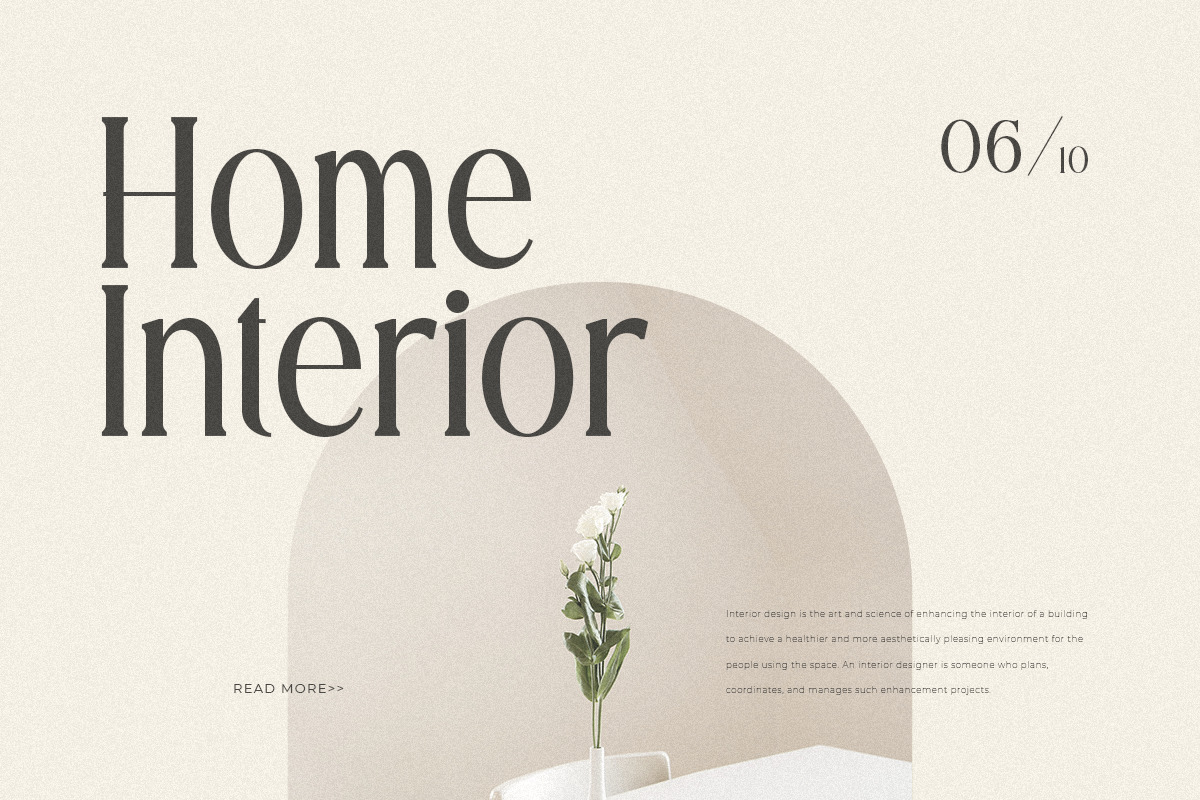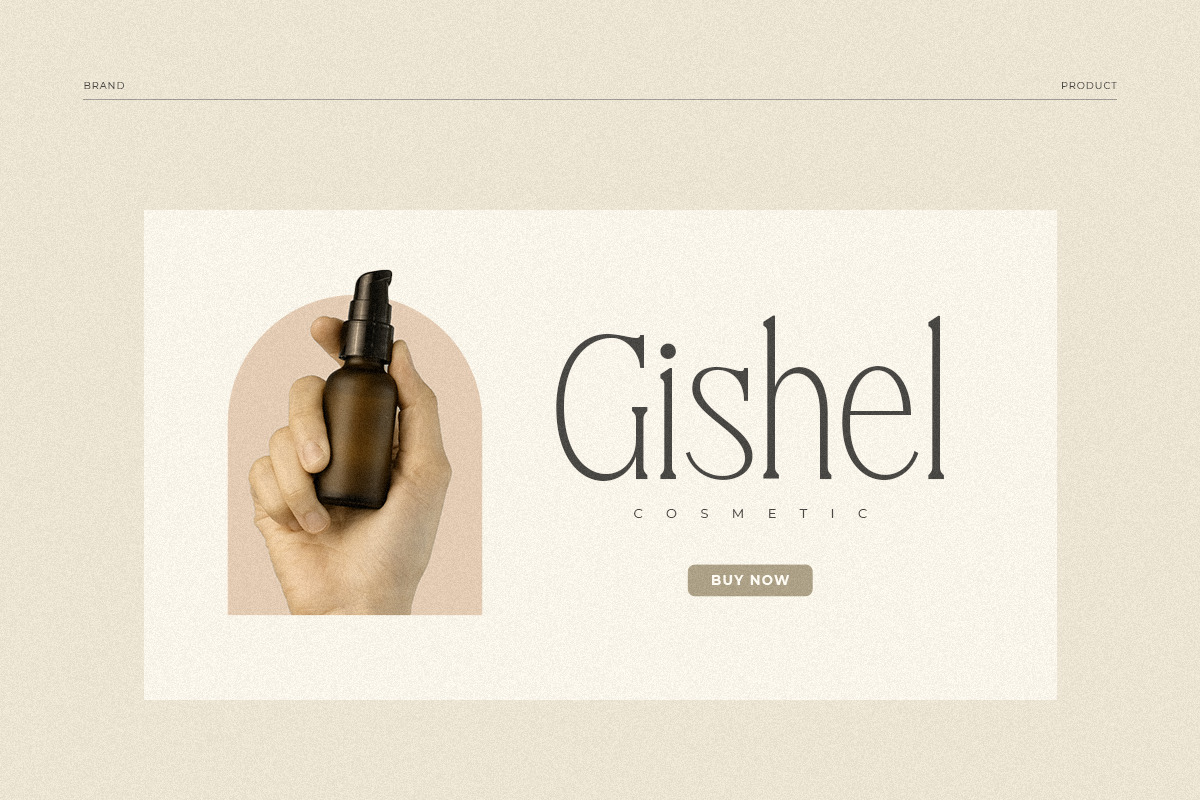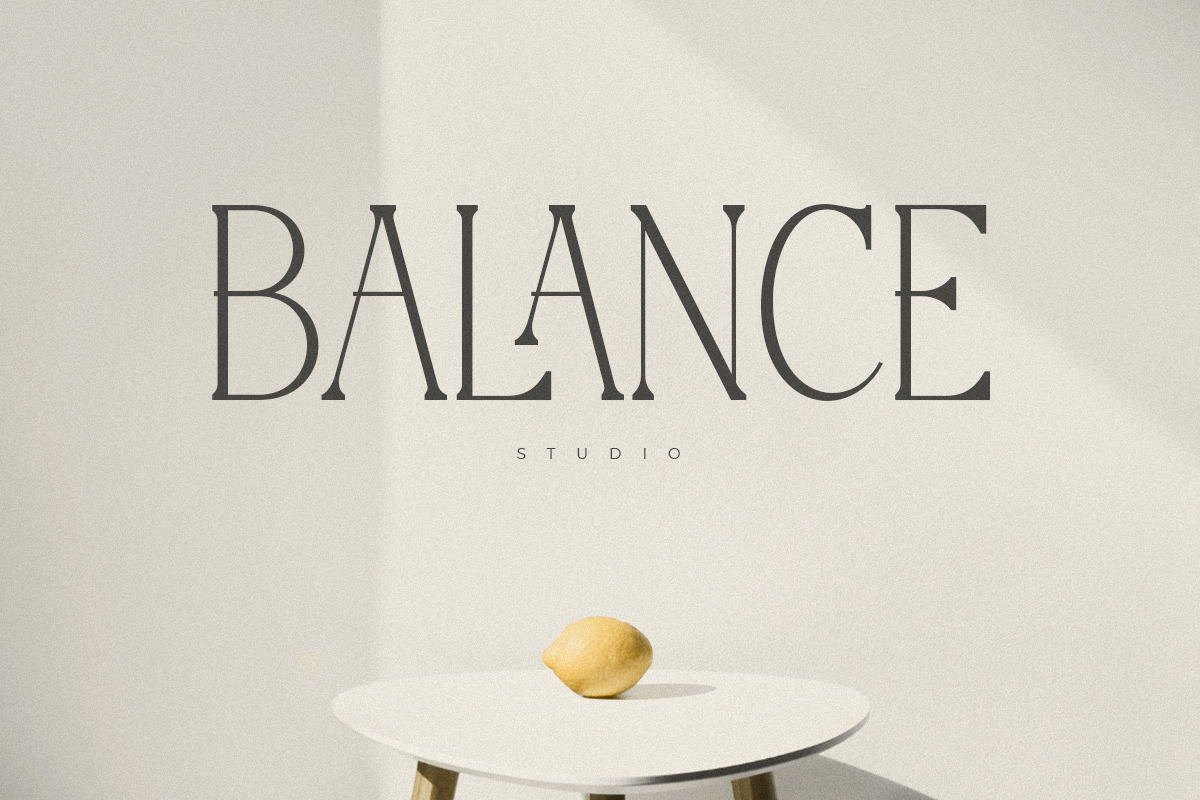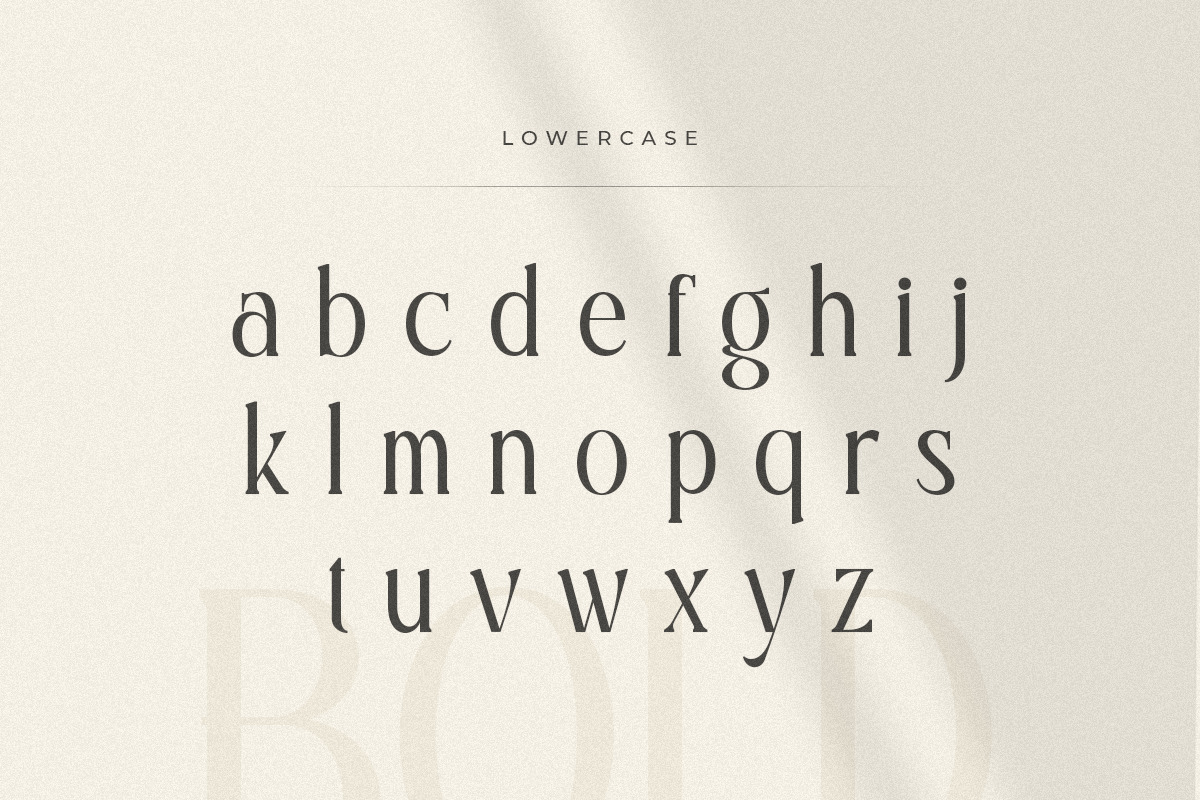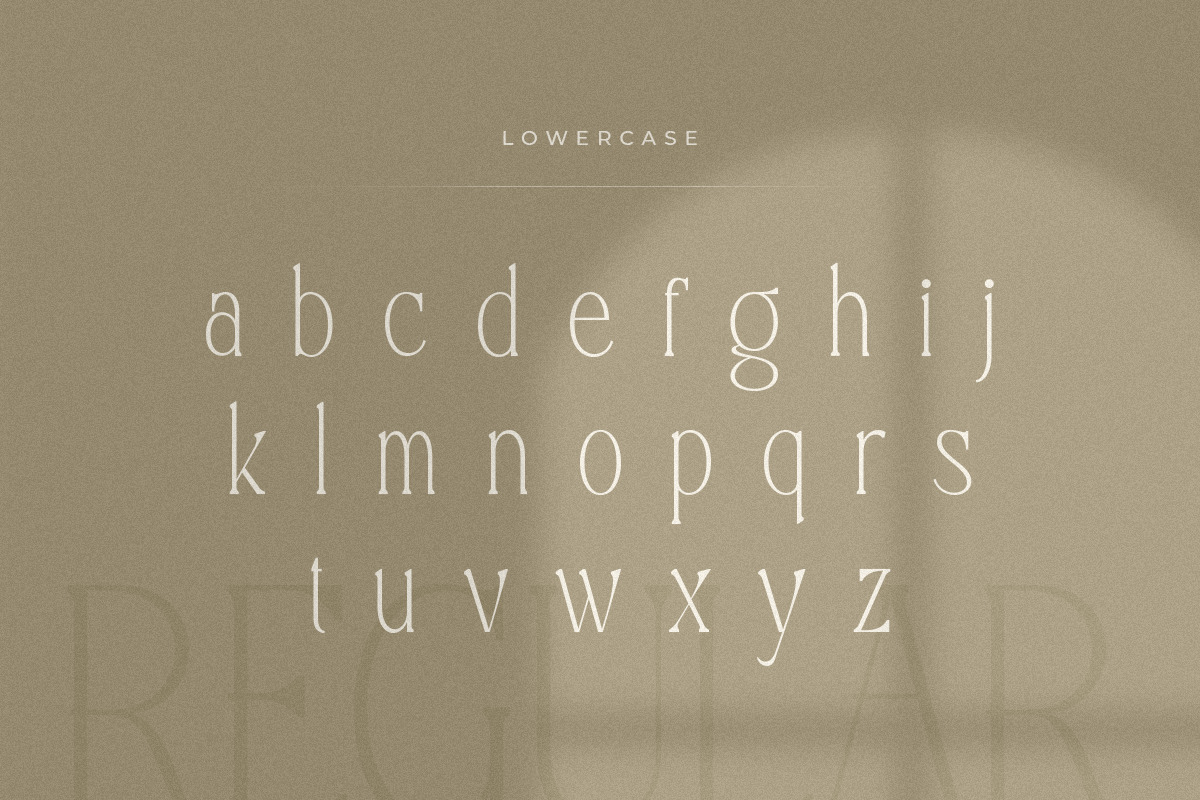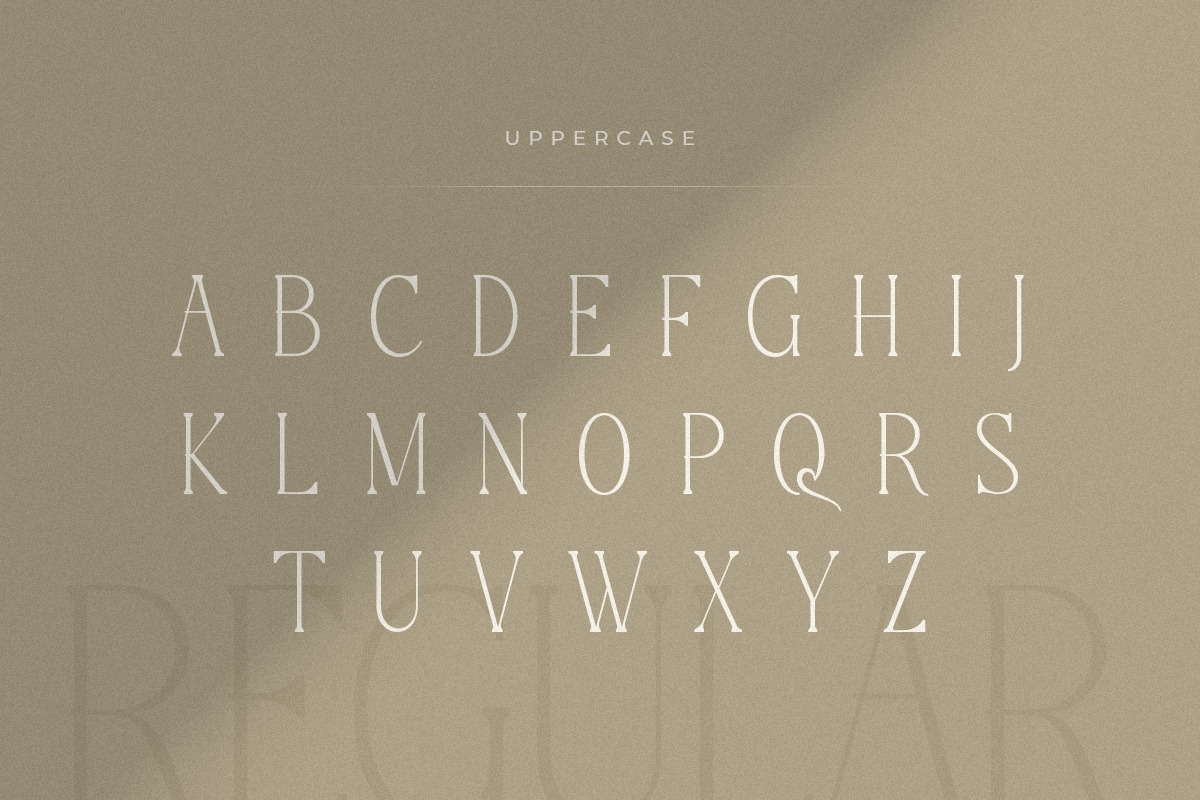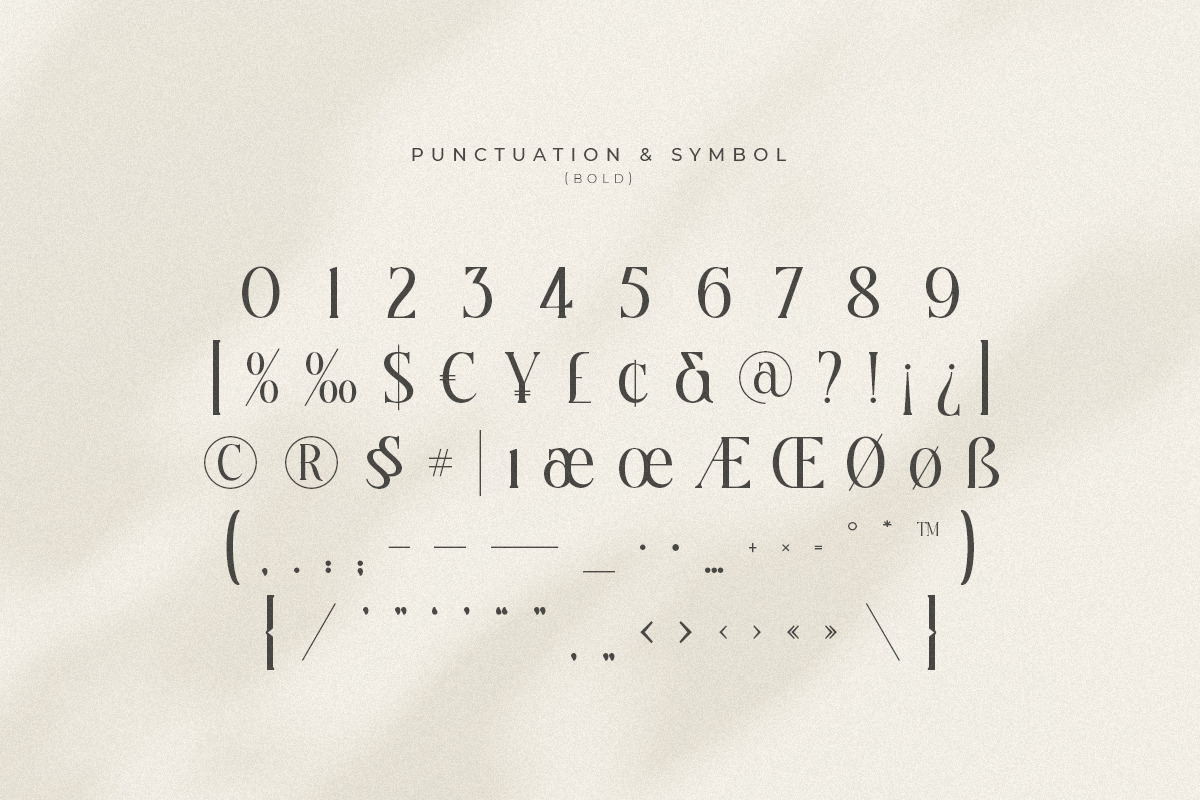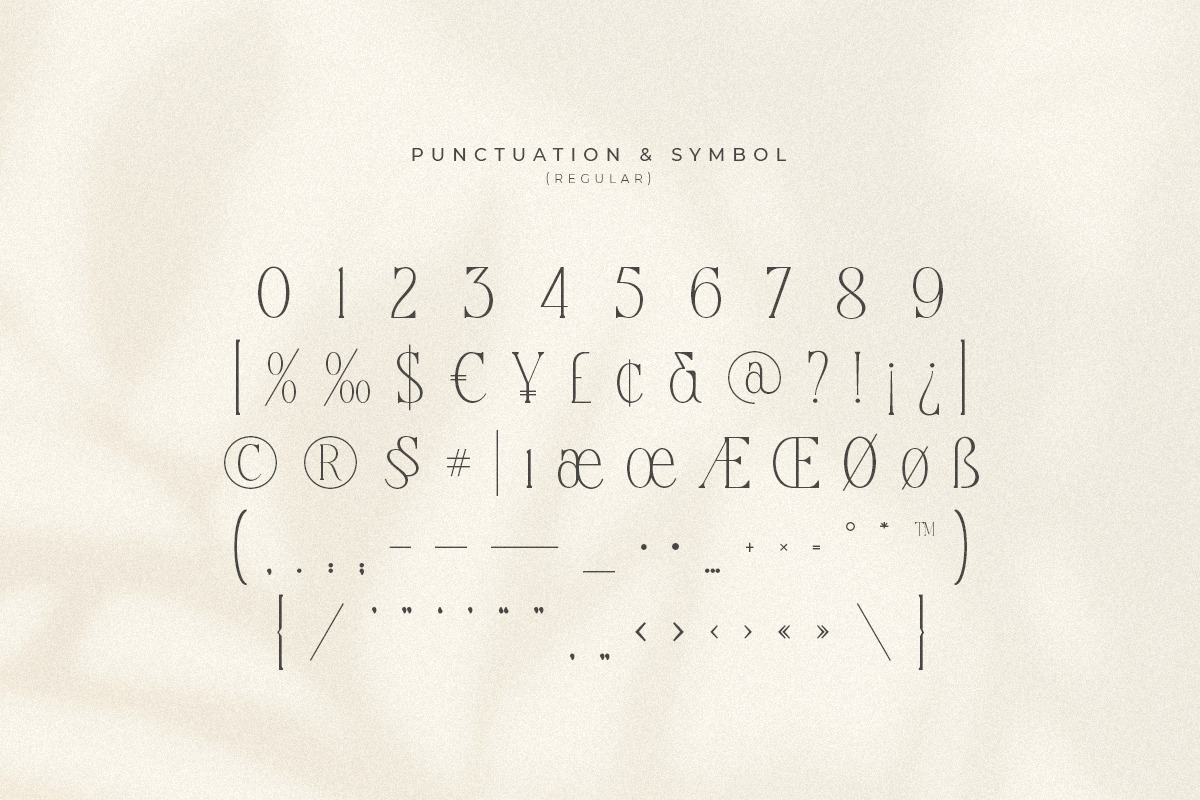
Legacy - Modern Luxury Ligature Font
A Modern Luxury Serif font that we created special for elegant branding needs, with unique shape will be ready to add value of your brand. It so nice to leverage designer or product owner that need solutions to make their design look more stylish and modern. And specially for Legacy font, We prepared any characters to help you create unlimited variations for your creative needs.
- Ready with Regular and Bold version
- Ready with Lowercase and Uppercase characters